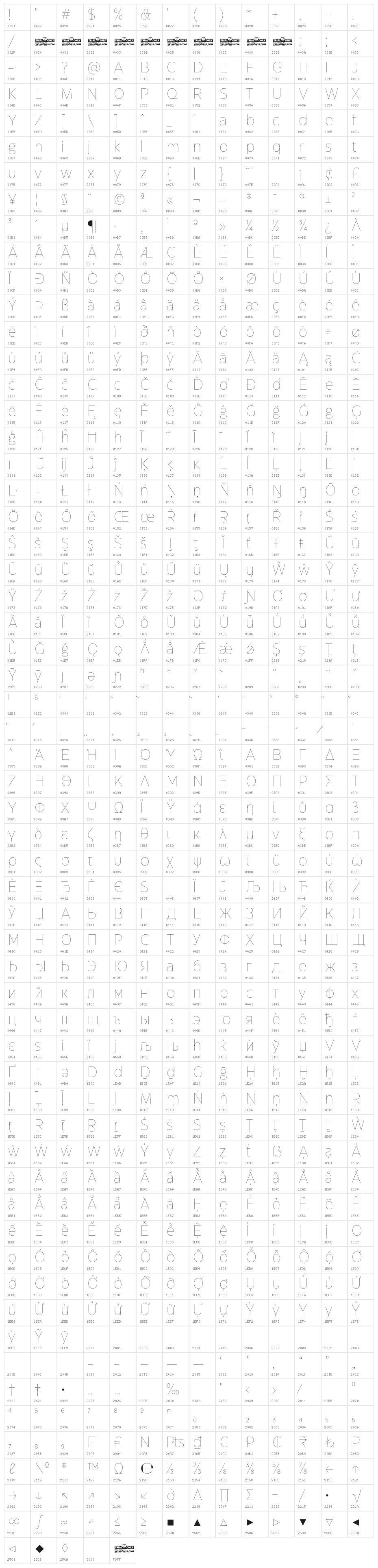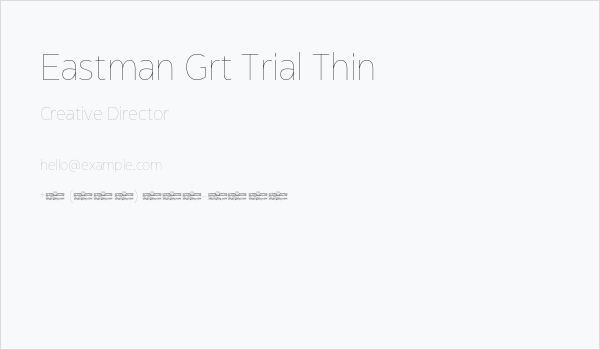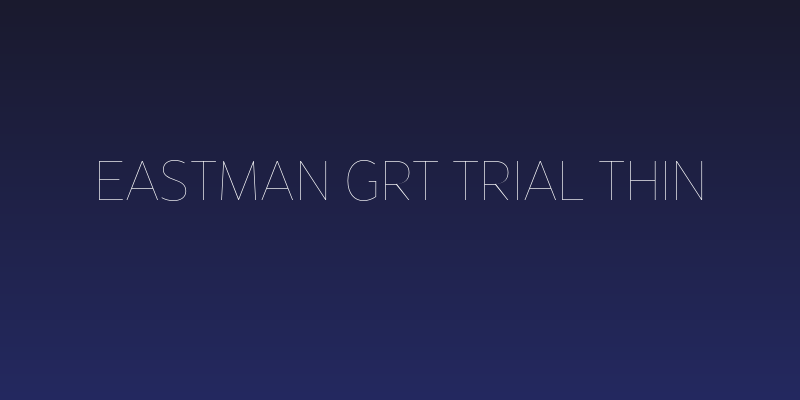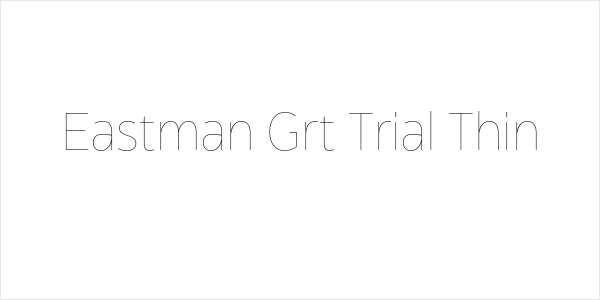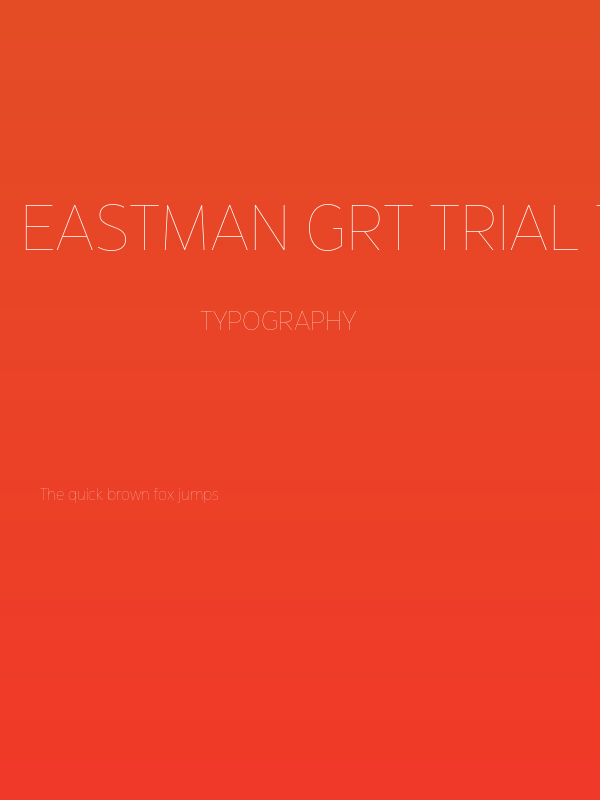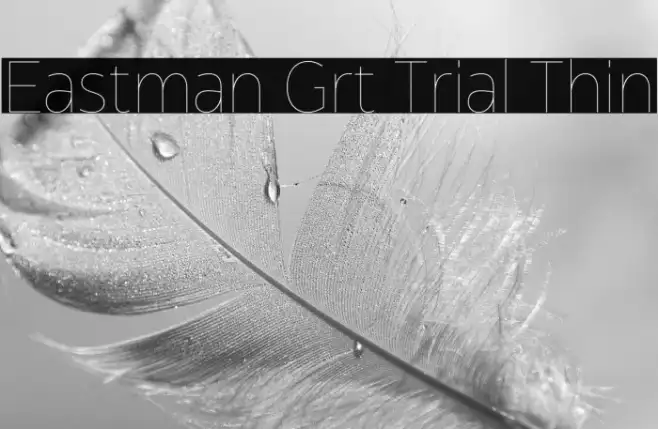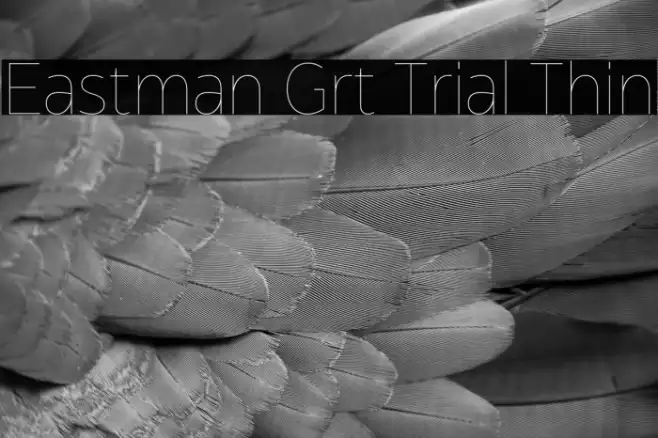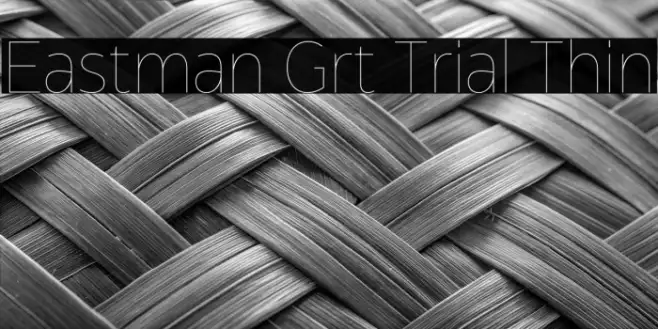
Eastman Grt Trial Thin Font
Eastman Grt Trial Thin Description
This typeface exhibits a sleek and minimalist design, characterized by its thin, uniform strokes and clean lines. The characters are evenly spaced, contributing to a modern and airy appearance. The uppercase and lowercase letters maintain a consistent height, enhancing readability and balance. The numerals and special characters follow the same design principles, ensuring a cohesive look across all elements. This font's simplicity and elegance make it suitable for a variety of design applications, where clarity and sophistication are desired.